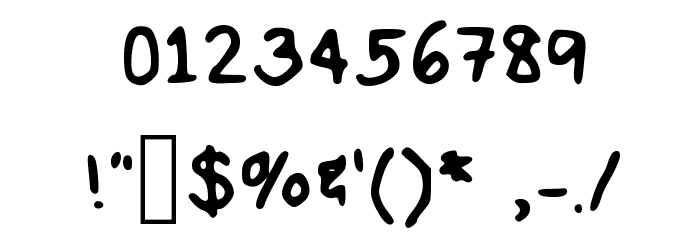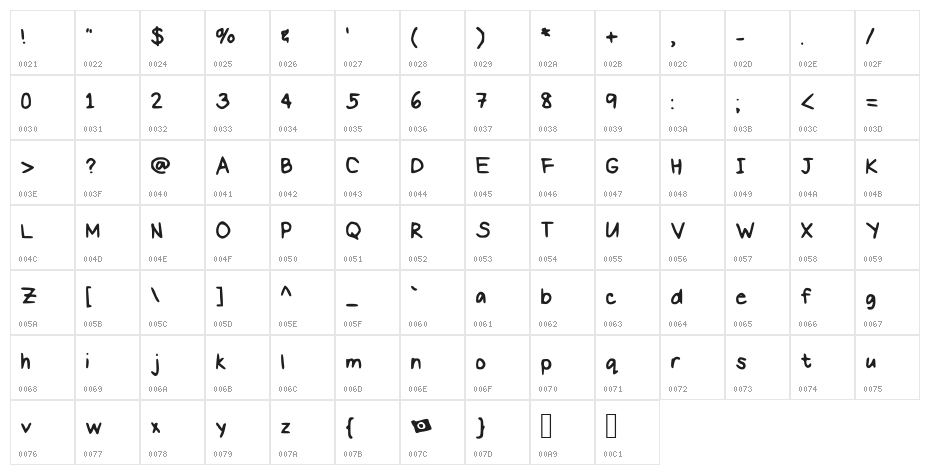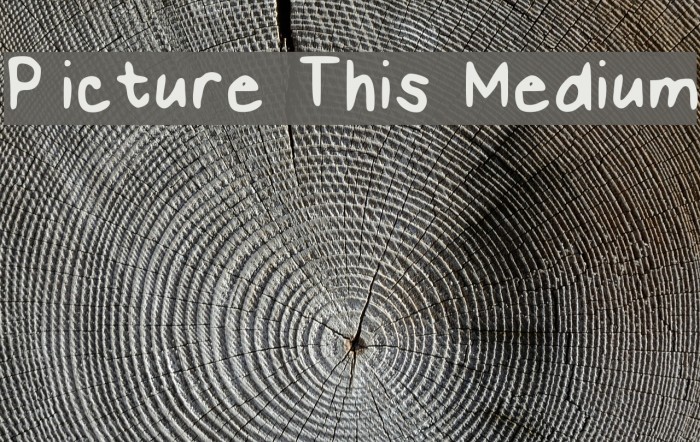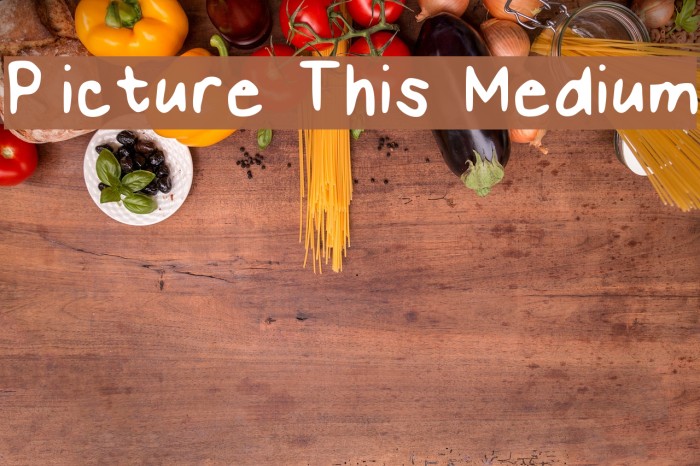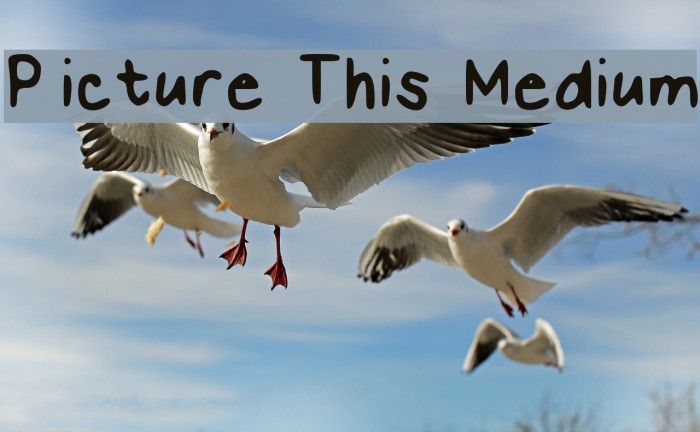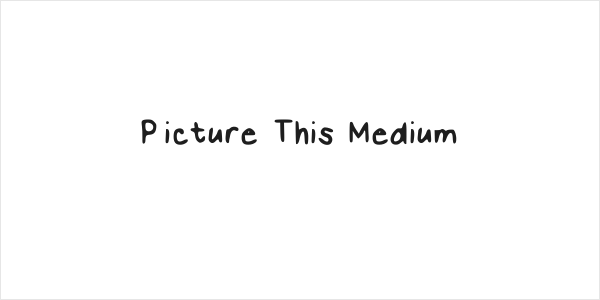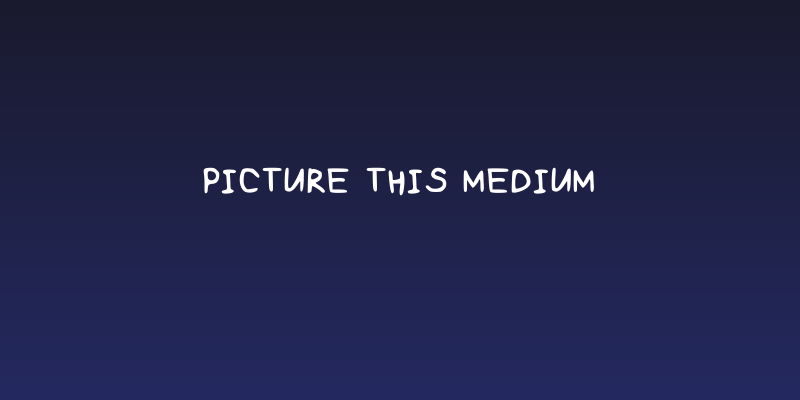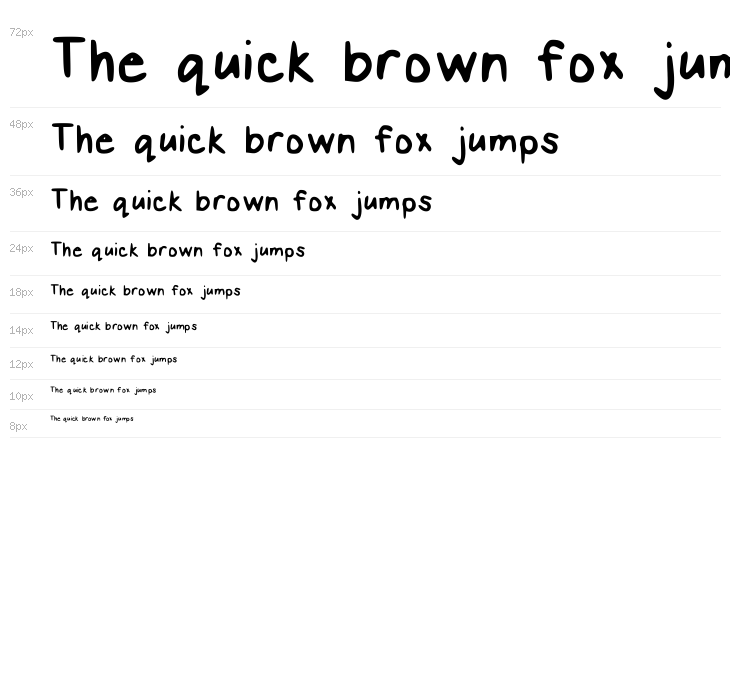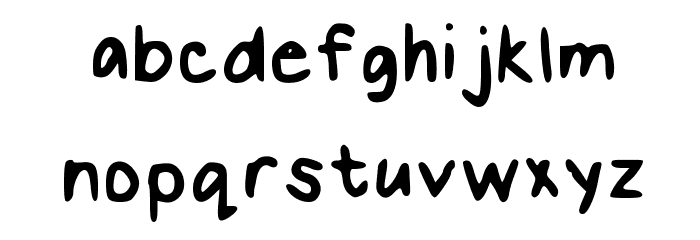
Picture This Medium Font
Picture This Medium Description
This font features a playful and casual handwritten style, characterized by its rounded and slightly irregular letterforms. The strokes are smooth and consistent, giving it a friendly and approachable appearance. The uppercase and lowercase letters maintain a cohesive look, with a slight tilt that adds to the informal vibe. Numbers and special characters are designed to match the overall aesthetic, ensuring versatility in various applications. The font's organic feel makes it suitable for projects that aim to convey warmth and creativity.